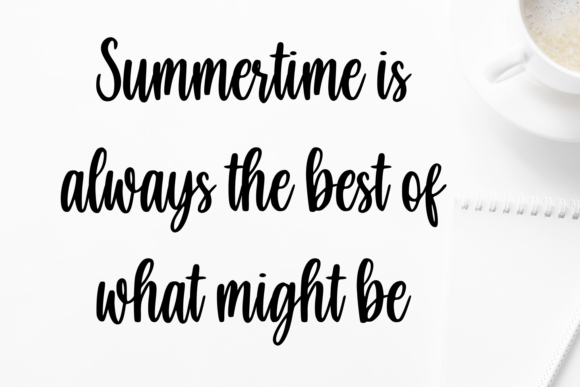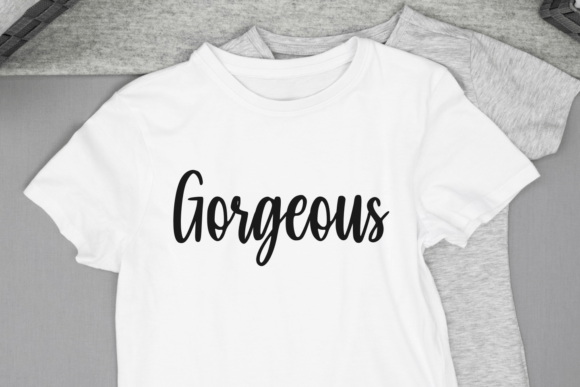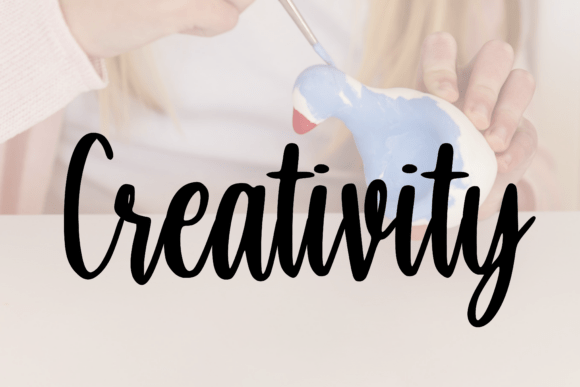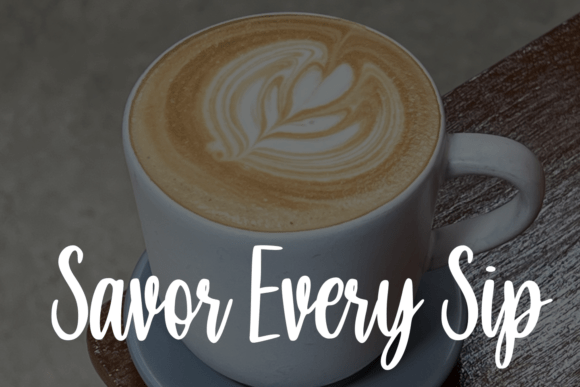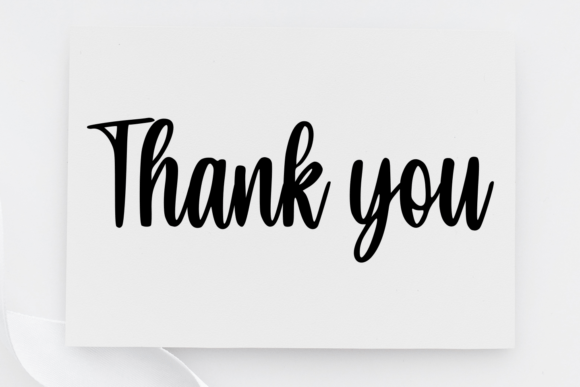
Dinginkan Font: Adding a Touch of Playfulness to Your Designs
In the world of typography, fonts play a crucial role in conveying the tone and personality of a brand or design. If you’re looking for a font that exudes a carefree and playful vibe, look no further than Dinginkan Font. This charming handwritten script is designed to bring a relaxed warmth to your designs, making it perfect for casual branding, quotes, and everyday designs.
The Charm of Dinginkan Font
Dinginkan Font is a beautifully crafted handwritten script that boasts smooth strokes and a natural rhythm. Its simple, carefree soul makes it an excellent choice for designers who want to add a touch of personality to their work. The font’s effortless simplicity ensures that it doesn’t try too hard, resulting in a friendly and approachable feel that’s hard to resist.
Key Features of Dinginkan Font
- Playful Handwritten Script: Dinginkan Font is a playful handwritten script that captures the charm of natural handwriting.
- Smooth Strokes: The font features smooth strokes that give it a fluid and organic feel.
- Carefree Soul: Dinginkan Font has a simple, carefree soul that makes it perfect for casual branding and everyday designs.
- Effortless Simplicity: The font’s effortless simplicity ensures that it doesn’t overpower the design, making it an excellent choice for quotes, headings, and titles.
Perfect for Casual Branding and Designs
Dinginkan Font is an excellent choice for designers who want to create casual and friendly branding materials. Its relaxed warmth makes it perfect for:
- Casual Branding: Use Dinginkan Font to create friendly and approachable branding materials, such as logos, business cards, and letterheads.
- Quotes and Headings: The font’s playful handwritten script makes it perfect for quotes, headings, and titles that require a touch of personality.
- Everyday Designs: Dinginkan Font is an excellent choice for everyday designs, such as social media graphics, blog posts, and flyers.
Why Choose Dinginkan Font?
With so many fonts available, why choose Dinginkan Font? Here are a few reasons why designers and crafters love this charming font:
- Unique Personality: Dinginkan Font has a unique personality that sets it apart from other fonts.
- Easy to Read: The font’s smooth strokes and clear letterforms make it easy to read, even at small sizes.
- Versatile: Dinginkan Font is versatile and can be used for a wide range of design projects, from casual branding to everyday designs.
Tips for Using Dinginkan Font
Here are a few tips for using Dinginkan Font in your designs:
- Pair with Other Fonts: Pair Dinginkan Font with other fonts to create a unique and visually appealing design.
- Use for Headings and Titles: Use Dinginkan Font for headings and titles to add a touch of personality to your design.
Dinginkan Font is a charming handwritten script that adds a touch of playfulness to any design. Its smooth strokes, natural rhythm, and carefree soul make it perfect for casual branding, quotes, and everyday designs. With its unique personality, ease of use, and versatility, Dinginkan Font is an excellent choice for designers and crafters who want to create friendly and approachable designs.